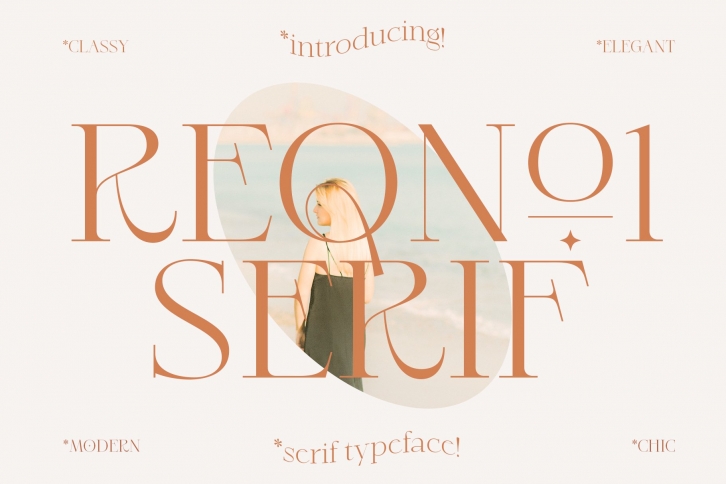
Reqone is a trendy and unique font with an authentic style. It was designed by inksun and it's a great choice for creative people who need such a font. It was released on October 20, 2022 and the file size is 8.79 MB. Reqone will add an organic vibe to any design idea!